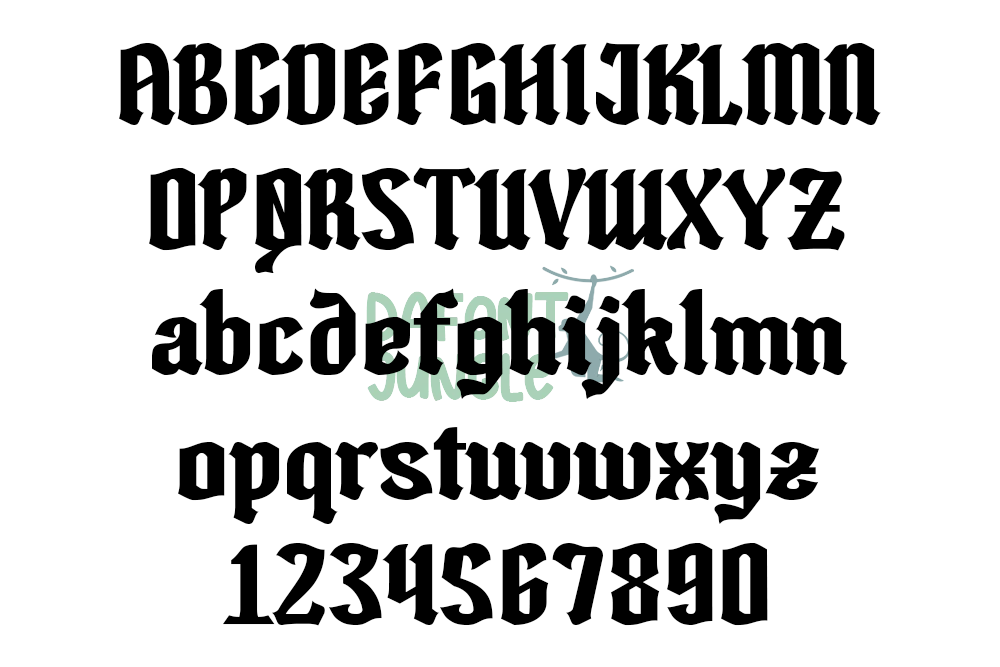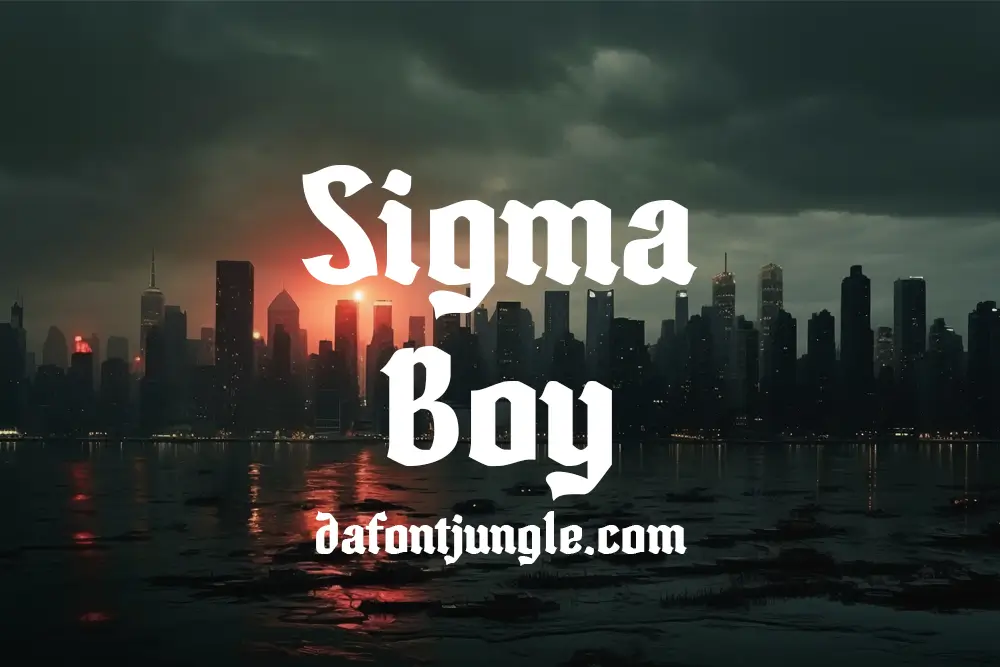
Sigma Boy – Elegant Blackletter Font with Modern Edge
Sigma Boy is a bold and elegant blackletter font that blends traditional Gothic influences with modern design versatility. Featuring four stylistic sets, decorative swashes, and multilingual support (including Latin and Cyrillic scripts), it’s perfect for logos, editorial design, posters, luxury branding, and web projects that demand a strong, artistic presence. With both power and polish, Sigma Boy brings depth and style to any visual identity.